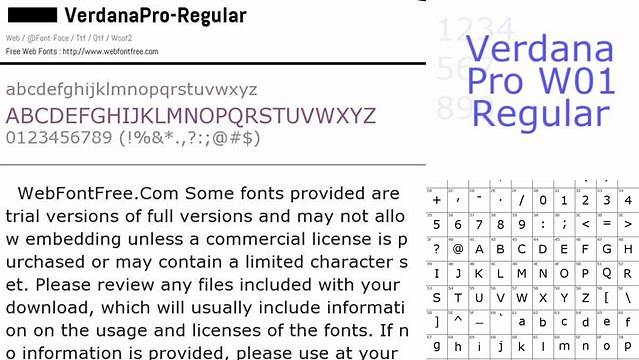
Hey guys! Ever found yourself on the hunt for the perfect font? You know, the one that just clicks with your project? Well, if you're anything like me, you've probably stumbled upon Verdana Pro Regular, a classic, clean typeface that's been a go-to for designers and everyday users alike. And the best part? You might be able to snag a Verdana Pro Regular font free download! This guide is all about helping you navigate the world of this fantastic font, from where to find it to how to use it effectively. We'll dive into its history, design, and even explore some cool alternatives. So, buckle up, and let's get started!
1. Unveiling the Elegance of Verdana Pro Regular
Alright, first things first: let's talk about what makes Verdana Pro Regular so darn special. Designed by Matthew Carter and released by Microsoft in 1996, Verdana was created specifically to be highly legible at small sizes, particularly on computer screens. That's right, folks, it was built for the digital age! The 'Pro' version, often available for Verdana Pro Regular font free download, is an expanded version of the original, offering a wider range of features and characters. The font's characteristics? Think clean lines, open counters (the spaces within letters), and a generous x-height (the height of lowercase letters), which all contribute to its excellent readability. It's not just a pretty face; it's a workhorse that performs beautifully across various platforms and applications. The careful design ensures that even at small point sizes, the letters remain distinct and easy to read, making it a fantastic choice for body text, website content, and even presentations. The design team behind Verdana meticulously crafted each letter to maximize legibility, especially on the lower resolutions of older computer monitors. This commitment to clarity is why Verdana Pro Regular has stood the test of time. Furthermore, the 'Regular' style is just the beginning; the Verdana Pro family includes various weights like bold, italic, and condensed versions, offering versatility for any design need. This adaptability makes it a favorite among designers looking for a consistent and user-friendly typeface.
Characteristics that define it
- Legibility: Designed for screen readability, Verdana excels at various sizes. The open letterforms contribute to its easy-to-read nature, which is crucial for digital interfaces and print media alike.
- Neutrality: It possesses a neutral personality, making it appropriate for a broad range of applications. This lack of strong character allows it to blend seamlessly into different design styles without overshadowing the message.
- Versatility: With multiple weights (bold, italic, etc.), Verdana Pro Regular provides flexibility for different design needs. This allows you to create emphasis, hierarchy, and contrast within your work without changing typefaces.
- Accessibility: Its excellent legibility makes it an excellent selection for accessible design. Its clear letterforms help users with visual impairments to read content easily, ensuring that information is accessible to everyone.